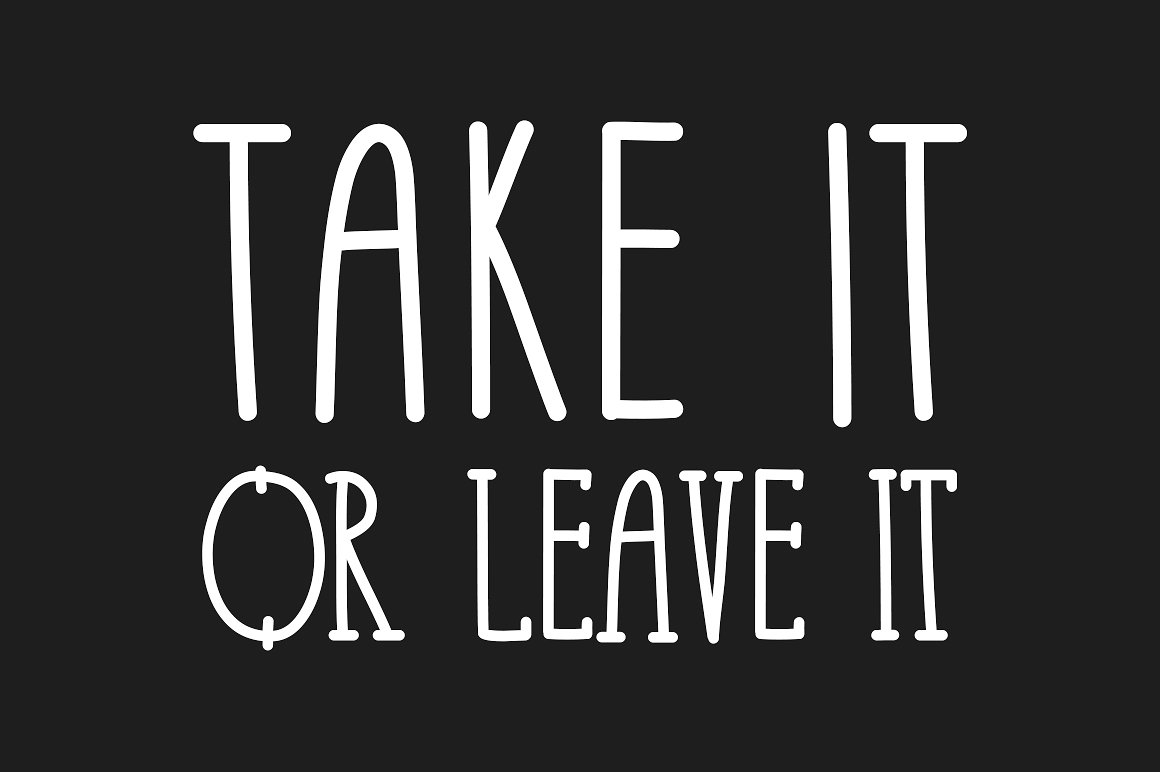
Take It or Leave It
Take It or Leave It – 3 font family
Take It or Leave It is a handwritten typeface that comes in both uppercase and lowercase styles. It has a very smooth feel, combines from clean and simple touch.
Take It or Leave It is perfect for publishing, printed quotes, invitations, cards, product packaging, headers and whatever your imagination holds.